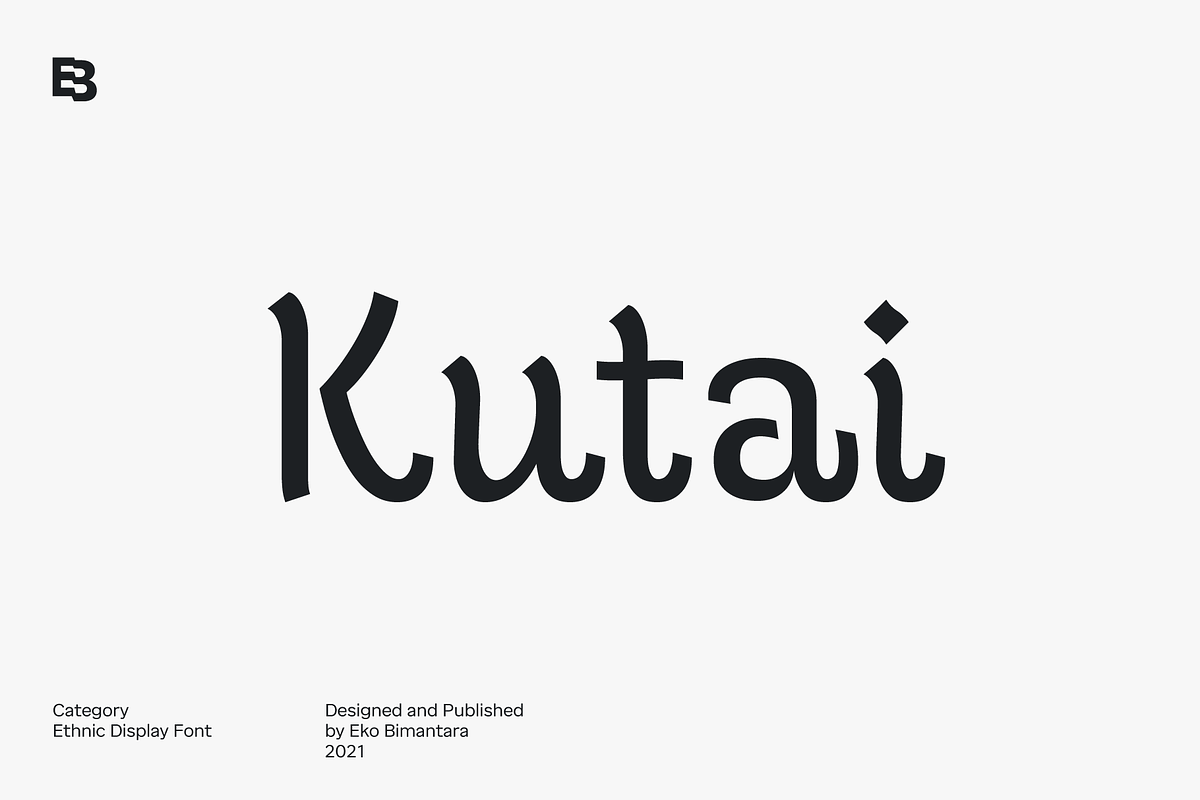
Kutai Ethnic Display Font Family Free Download is a bold, unique typeface inspired by ethnic and tribal design elements. With its striking geometric forms, intricate details, and cultural flair, this font family is perfect for creating eye-catching headlines, logos, posters, and branding projects with an adventurous, global vibe.
Its versatile design includes multiple weights, making it ideal for both large display text and smaller body copy, while maintaining a distinctive, artistic look. Whether you're working on a festival poster, a cultural branding project, or a bohemian design, Kutai Ethnic Display Font Family Free Download adds personality and depth to your work.